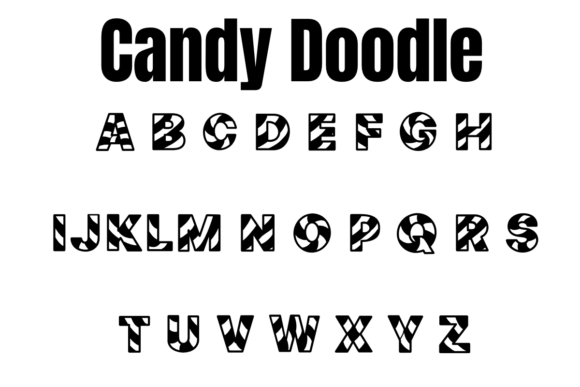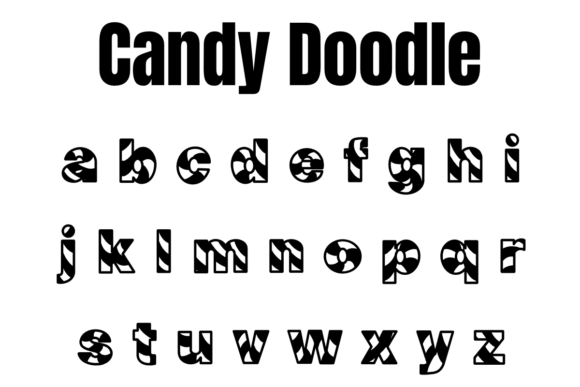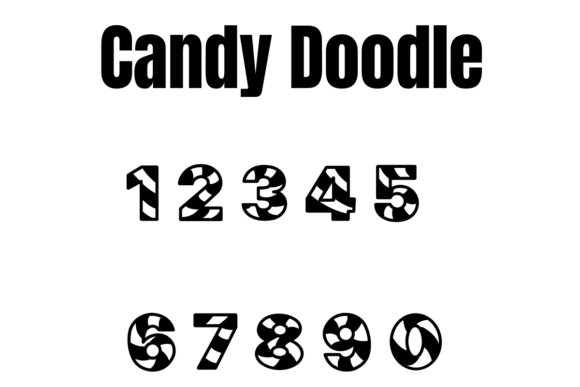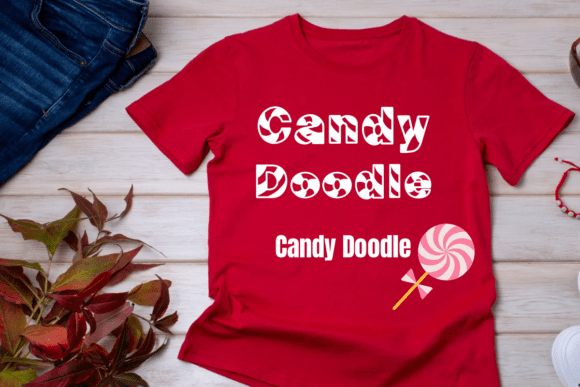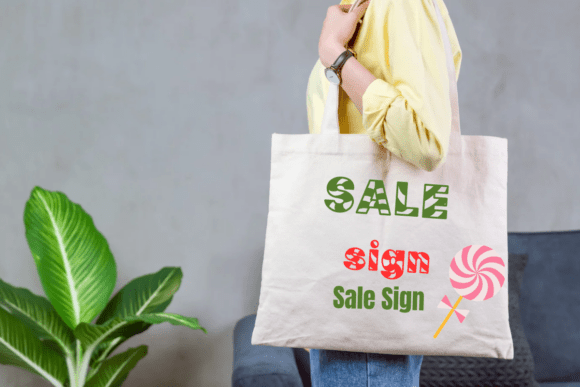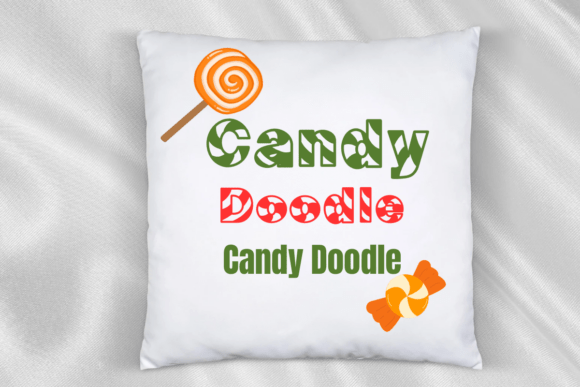
Candy Doodle Font: The Sweetest Addition to Your Design Projects
Are you looking for a font that can add a dash of fun and festivity to your design projects? Look no further than the Candy Doodle font! This incredibly fun and festive decorative font is perfect for bringing a playful, sweet, and highly customizable confectionery theme to any design project. In this article, we’ll dive into the world of Candy Doodle and explore its features, benefits, and uses.
A Delightful Decorative Typeface
Candy Doodle is a delightful decorative typeface that allows you to mix and match colors and patterns within the glyphs, making it an ideal choice for holiday crafting, cheerful packaging, and party-themed creations. Each letter is essentially a cut-out or patterned frame—some resemble peppermint swirls, while others have a checkerboard or lollipop feel—giving it a truly unique look that stands out.
Key Features of Candy Doodle Font
- Highly customizable: Mix and match colors and patterns within the glyphs to create a unique look that suits your design project.
- Playful and festive: Perfect for holiday crafting, cheerful packaging, and party-themed creations.
- Excellent readability: The high-impact, bold structure of the Candy Doodle font ensures excellent readability, making it perfect for children’s birthday invitations, seasonal greeting cards, and more.
- Versatile: Use this versatile display typeface to inject a dose of pure, colorful joy and imaginative sweetness into your next project.
Uses of Candy Doodle Font
Candy Doodle font is perfect for a variety of design projects, including:
- Children’s birthday invitations: Create fun and playful invitations that will delight kids and parents alike.
- Seasonal greeting cards: Add a touch of festivity to your holiday cards with Candy Doodle font.
- Food and dessert logos: Create eye-catching logos for your food or dessert business that will make your brand stand out.
- Lively social media banners: Use Candy Doodle font to create eye-catching social media banners that will grab the attention of your followers.
- Holiday crafting: Perfect for creating fun and festive holiday crafts, such as gift tags, garlands, and more.
- Cheerful packaging: Add a touch of whimsy to your product packaging with Candy Doodle font.
- Party-themed creations: Create fun and playful party-themed creations, such as party hats, invitations, and more.
Tips for Using Candy Doodle Font
Here are some tips for using Candy Doodle font in your design projects:
- Experiment with colors: Try out different color combinations to create a unique look that suits your design project.
- Mix and match patterns: Mix and match different patterns within the glyphs to create a truly unique look.
- Use it sparingly: Use Candy Doodle font sparingly to add a touch of whimsy to your design project.
- Pair it with other fonts: Pair Candy Doodle font with other fonts to create a unique and eye-catching design.
Candy Doodle font is a fun and festive decorative font that is perfect for adding a playful, sweet, and highly customizable confectionery theme to any design project. With its highly customizable features, excellent readability, and versatility, Candy Doodle font is perfect for a variety of design projects, from children’s birthday invitations to food and dessert logos. So why not give it a try and add a dose of pure, colorful joy and imaginative sweetness to your next project?